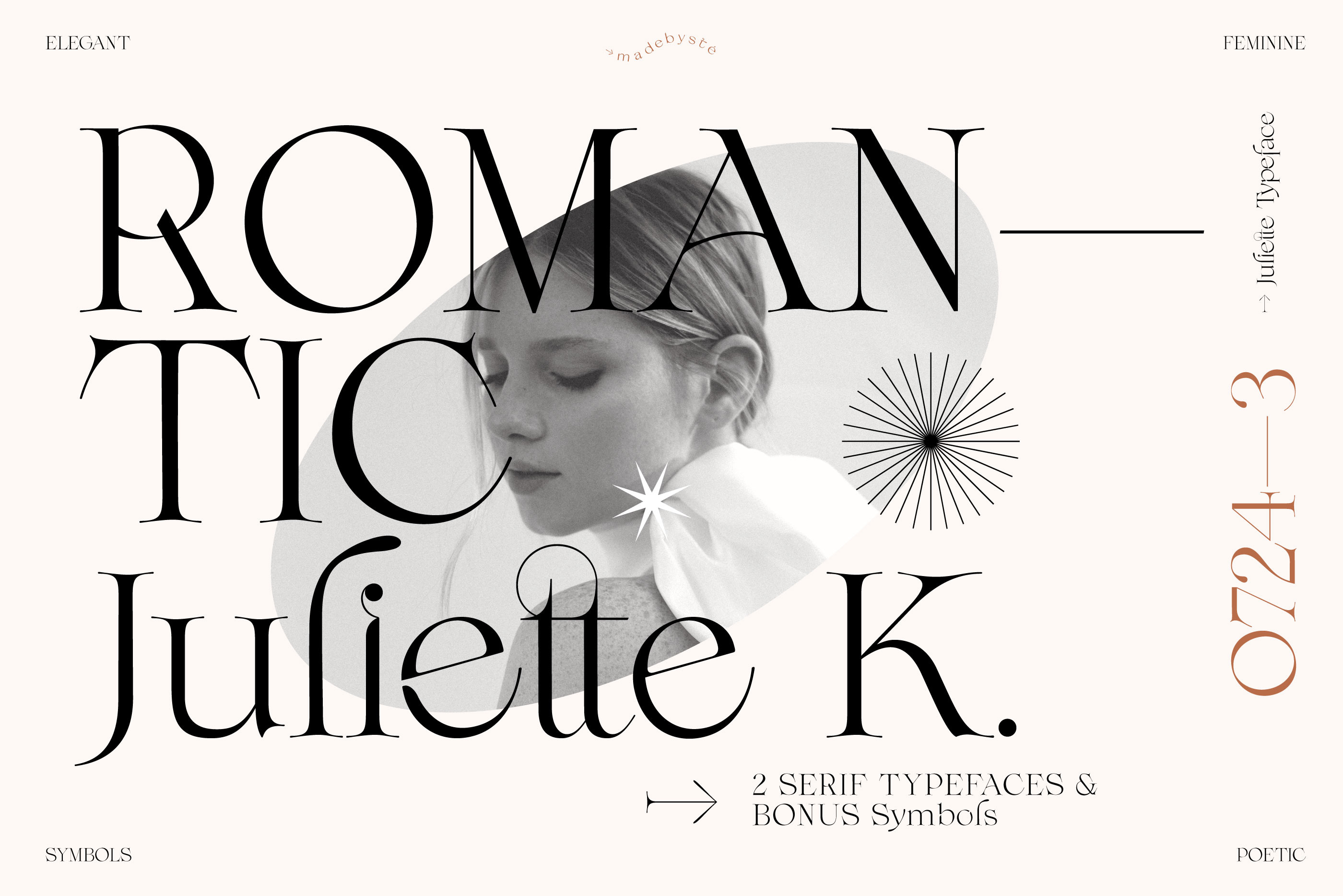
JULIETTE — 2 FONTS + 1 SYMBOL FONT
Juliette — Poetic / Chic / Modern / Symbols
Combine Juliette Regular and Juliette Symbols to create stunning and unique designs. Have fun!
Juliette Regular is a mix of sweet curves with the lowercase set and strong impactful letters for the uppercase set. This typeface has clearly a "yin and a yang" that's what makes it very unique. Chic, modern and creative this typeface DUO will allow you to create stunning and original layouts for both print and web. Have fun with Juliette Symbols and use it endlessly.